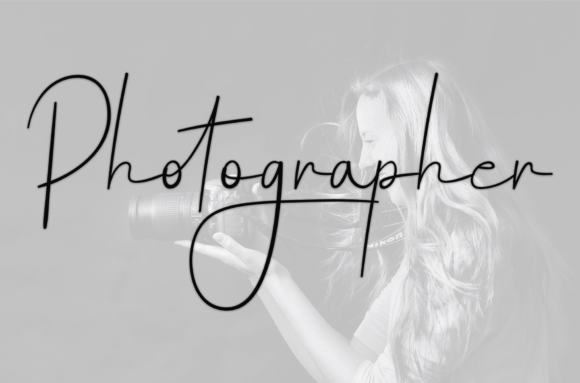
Embark on a visual adventure with Photographer Font, the captivating script font designed to elevate your creative expression on Instagram. Handcrafted by the talented pinkmeca, this font exudes a playful charm that adds a touch of whimsy to your social media presence.
Unleash your inner artist and let your words dance across the screen, flowing effortlessly in the unique strokes of Photographer Font. Its carefully crafted characters bring a sense of authenticity and personal touch to your Instagram profile, making your posts stand out from the crowd.
This versatile font family seamlessly adapts to a wide range of digital creations, from stunning presentations to heartfelt greeting cards. Its playful nature invites you to experiment with different styles, adding a unique flair to your digital designs.
Transform your Instagram profile into a visual masterpiece with Photographer Font. Embrace the fun and friendly vibes of this handwritten font, captivating your audience with its charm. Whether you're a seasoned designer or just starting your creative journey, this font will inspire you to create captivating content that resonates with your followers.